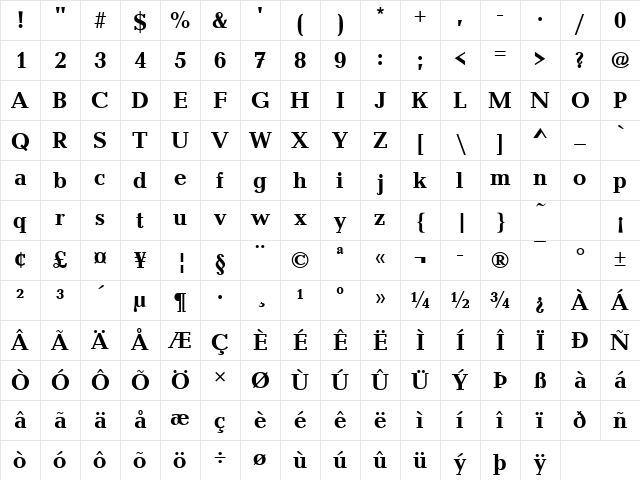
CandidaTMed Regular Free Font
CandidaTMed Regular
Design Context for CandidaTMed
CandidaTMed is a composed and adaptable typeface that performs quietly and consistently across a wide range of design contexts.